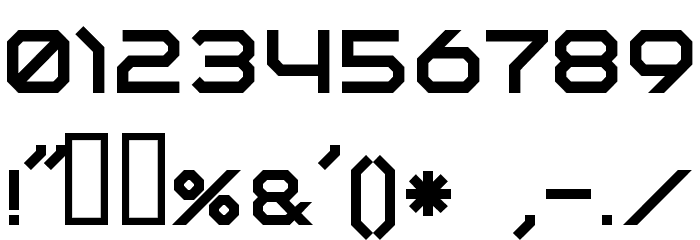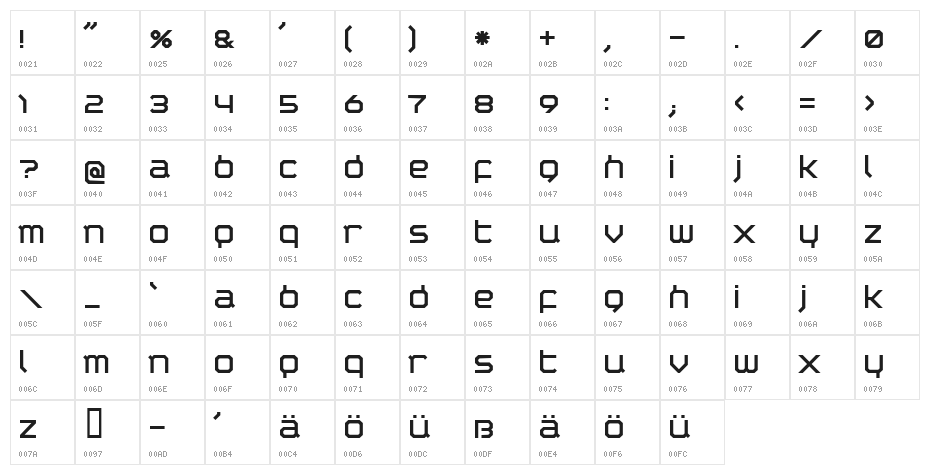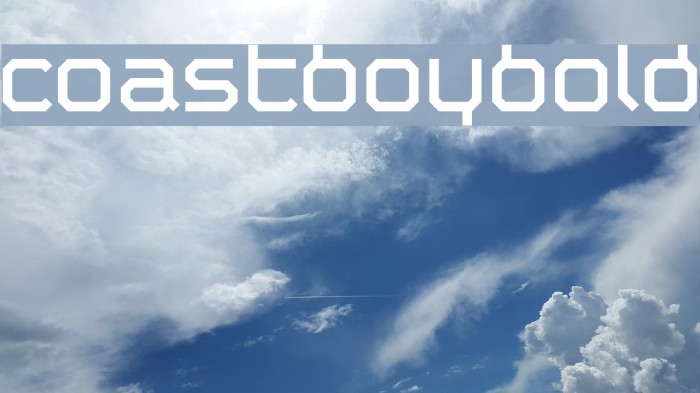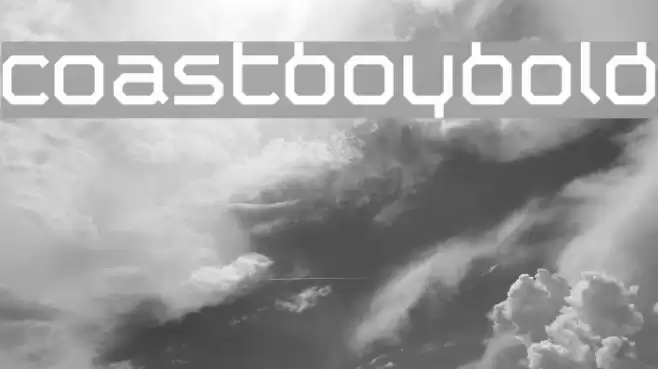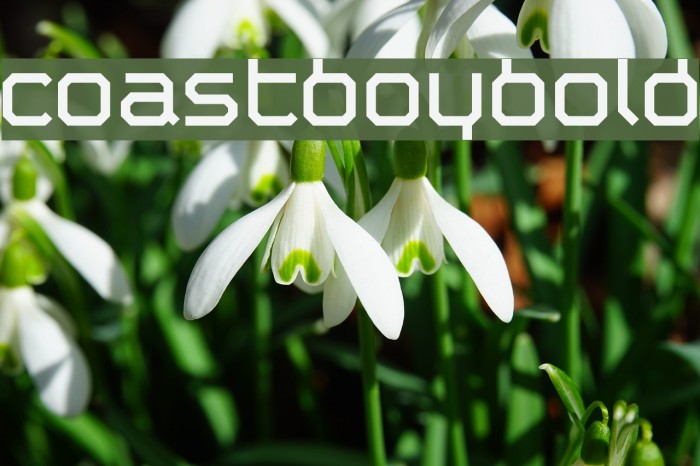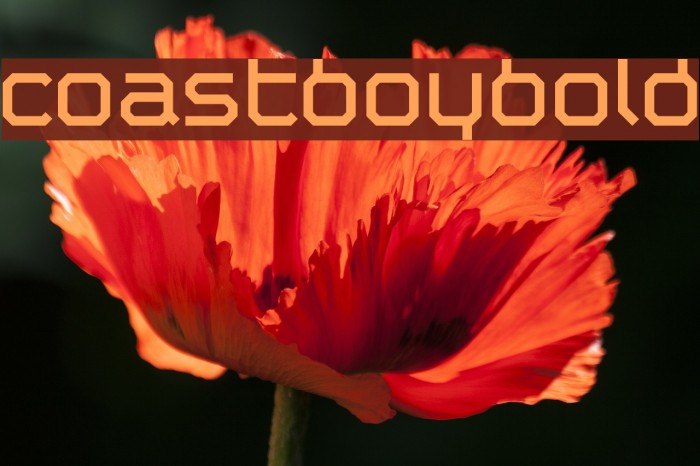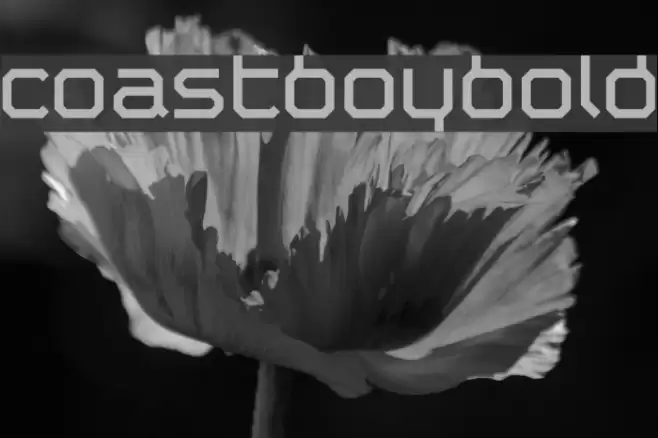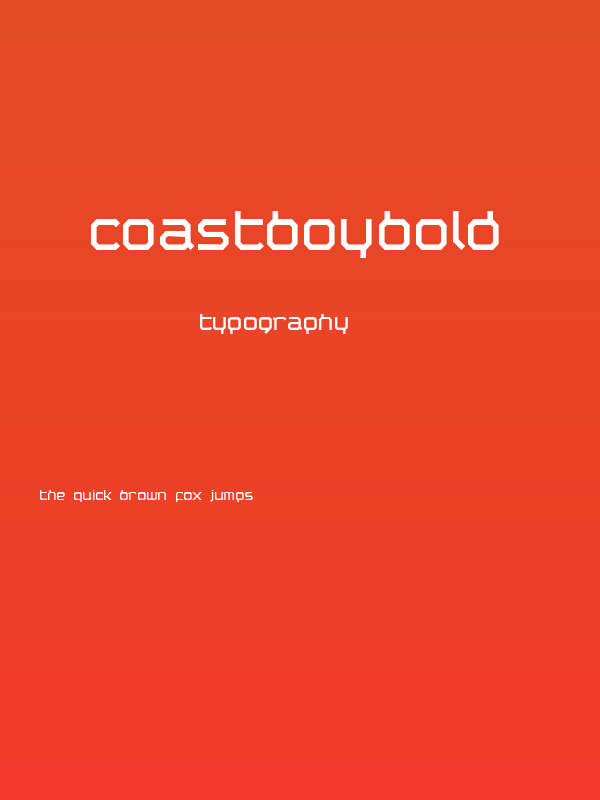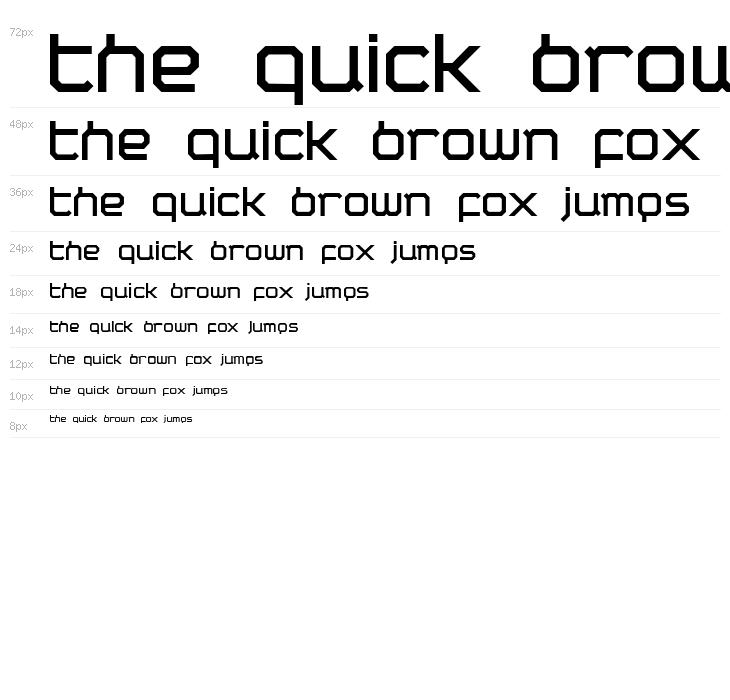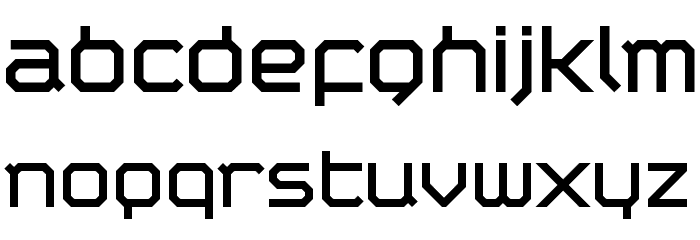
Coastboybold Font
Coastboybold Description
This font features a bold and geometric design with a modern, angular aesthetic. The characters are constructed with sharp edges and straight lines, giving it a futuristic and tech-inspired look. The uniformity in stroke width across all characters contributes to its bold appearance, while the angular cuts and corners add a unique, edgy flair. The font maintains a consistent height and width, ensuring readability and balance. Its distinct style makes it suitable for projects that require a strong visual impact.
| Proposed Projects | Ideal for technology branding, video game titles, futuristic posters, and digital interfaces. |